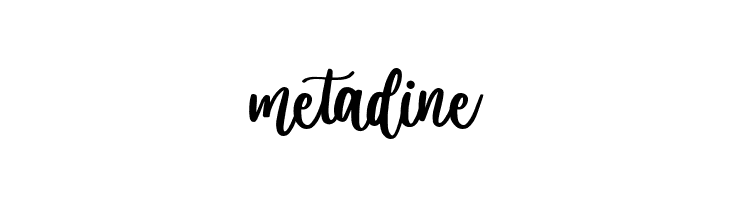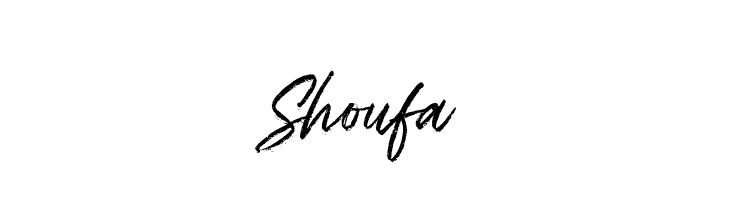
A playful, casual handwritten font with dynamic, irregular strokes.
A playful, handwritten font with a casual and informal style.
A playful, casual handwritten font with dynamic strokes.
A playful, handwritten font with a casual and friendly appearance.
A casual, playful handwritten font with a dynamic and spontaneous style.
A playful, handwritten font with bold, expressive strokes.
A playful, casual handwritten font with irregular strokes and a personal touch.
A playful, casual handwritten font with dynamic strokes.
A playful, casual handwritten font with irregular strokes and a whimsical feel.
A playful, casual handwritten font with irregular strokes and a lively feel.
A playful, casual handwritten font with irregular strokes and a lively appearance.
A bold, handwritten font with a playful and casual style.
A playful, casual handwritten font with a lively and informal style.
A casual, handwritten font with a playful and informal style.
A playful, handwritten font with irregular and organic strokes.
A playful, handwritten font with irregular strokes and a casual vibe.
A bold, handwritten font with expressive, flowing strokes.
A playful handwritten font with bold, irregular strokes and a whimsical style.
A playful, handwritten font with bold, expressive strokes and a casual style.
A playful, handwritten font with whimsical doodles and a casual style.
A playful, handwritten font with a casual and whimsical style.
A playful, casual handwritten font with a lively and dynamic style.
A playful, hand-drawn font with whimsical and artistic characteristics.
A playful, handwritten font with a casual and dynamic style.
A casual and playful handwritten font with dynamic strokes.
A playful, handwritten font with bold, rounded strokes and a casual vibe.
A playful, casual handwritten font with a loose, flowing style.
A playful, handwritten font with a whimsical and casual style.
A playful and whimsical set of hand-drawn doodles with bold outlines.
A playful collection of hand-drawn doodles with a whimsical and casual style.
A playful, handwritten font with a casual and informal style.
A playful and casual handwritten font with a dynamic, informal style.